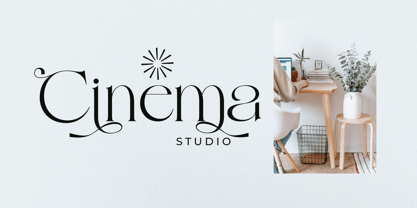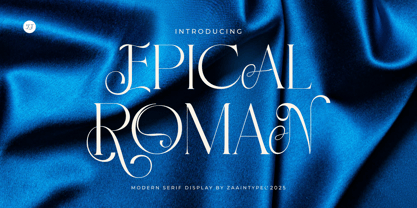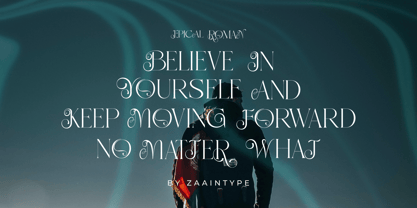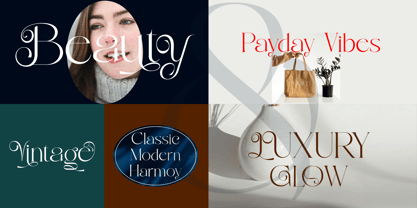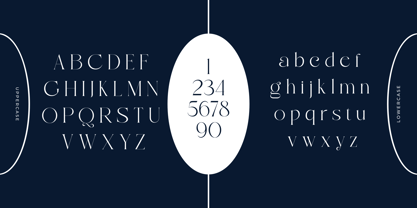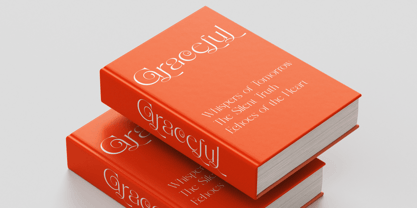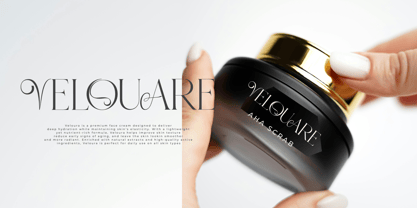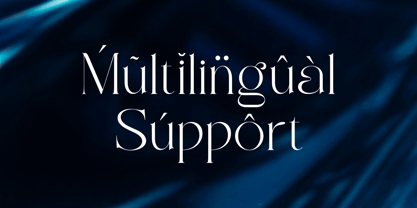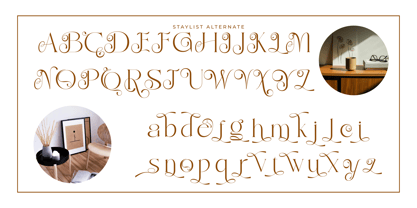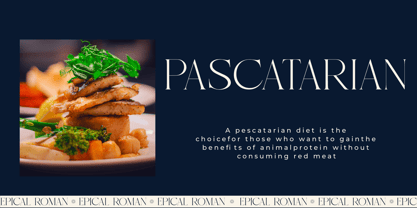
Epical Roman
by Zaain Type
The Epical Roman Font Family was designed by Ju Naen and published by Zaain Type. Epical Roman contains 2 styles and family package options. More about this family
Epical Roman is a timeless serif font that blends classical elegance with modern refinement. Featuring balanced proportions, delicate serif details, and graceful contrast, it brings a sense of authority and sophistication to any design. Perfect for editorial layouts, book covers, luxury branding, and projects that seek a touch of tradition with a contemporary feel. Its refined letterforms offer both readability and beauty, making Epical Roman an ideal choice for designers who want to elevate their typography with strength and elegance
Designers: Ju Naen
Foundry: Zaain Type
Zaain Type is a type foundry based in Purbalingga, Central Java. Specializing in high-quality type design, Zaain Type offers a range of fonts that combine traditional craftsmanship with modern aesthetics. Known for its meticulous attention to detail, the foundry produces typefaces suitable for various applications, ensuring readability and visual appeal. Inspired by the rich cultural heritage of Central Java, Zaain Type incorporates local artistic elements into its designs, contributing to the global appreciation of Indonesian typography.